From cozy scripts to playful displays, get Cricut-friendly picks and tips to nail menus, invites, and festive crafts.
Holiday gatherings need type that sets the mood—lettering that gives place cards, table signage, gift tags, and decor a warm, seasonal voice. This curated lineup pairs clear how‑to notes with cutter‑ready choices, so you can install in minutes, print or vinyl‑cut cleanly in Cricut Design Space or Silhouette Studio, and finish festive projects fast with polished autumn style.
1. Fall Decorative Font
Celebrate the season with a warm, festive decorative display font made for autumn and Thanksgiving projects.
- Style/mood: cozy, rustic, harvest-inspired display type; ideal for headlines, quotes, and signage.
- Typical uses: Thanksgiving invitations and menus, place cards, farmhouse signs, mugs/totes, stickers, printables, and social posts.
- Glyph set: standard Latin A–Z, a–z, 0–9, and basic punctuation/symbols.
- OpenType: basic OpenType encoding for wide app support; no special alternates/ligatures unless otherwise specified.
2. Thanksgiving Display Font
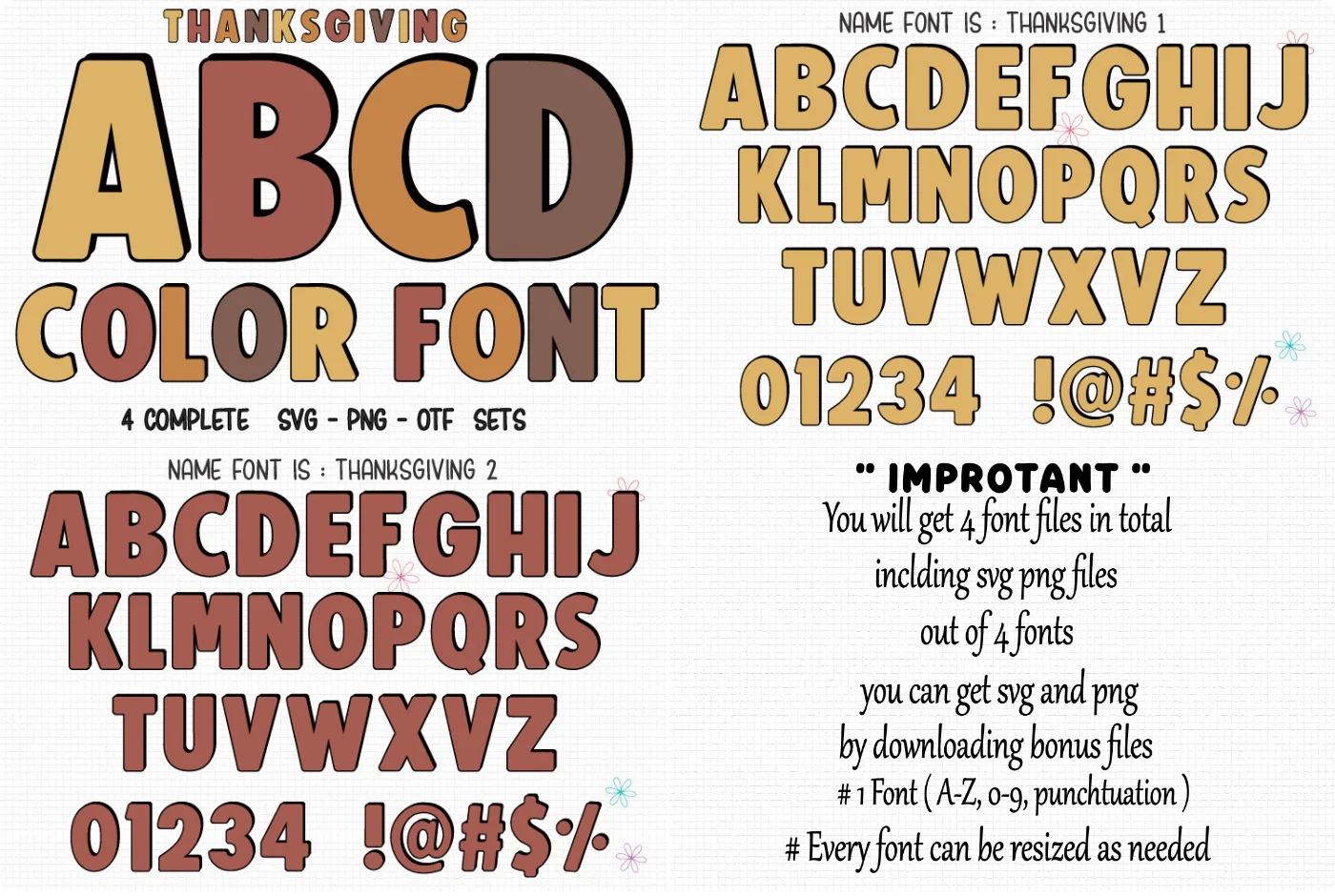
Add playful, chunky charm to kid-focused designs with this cute, colorful display font. Available in both color and solid black versions.
- Style/mood: chunky, cute, colorful, playful, and friendly.
- Best for: children’s activities, school projects, classroom decor, party invites, and craft projects.
- Glyphs: basic character set (standard letters, numbers, punctuation); no special OpenType features specified.
3. Thankful Decorative Display Font
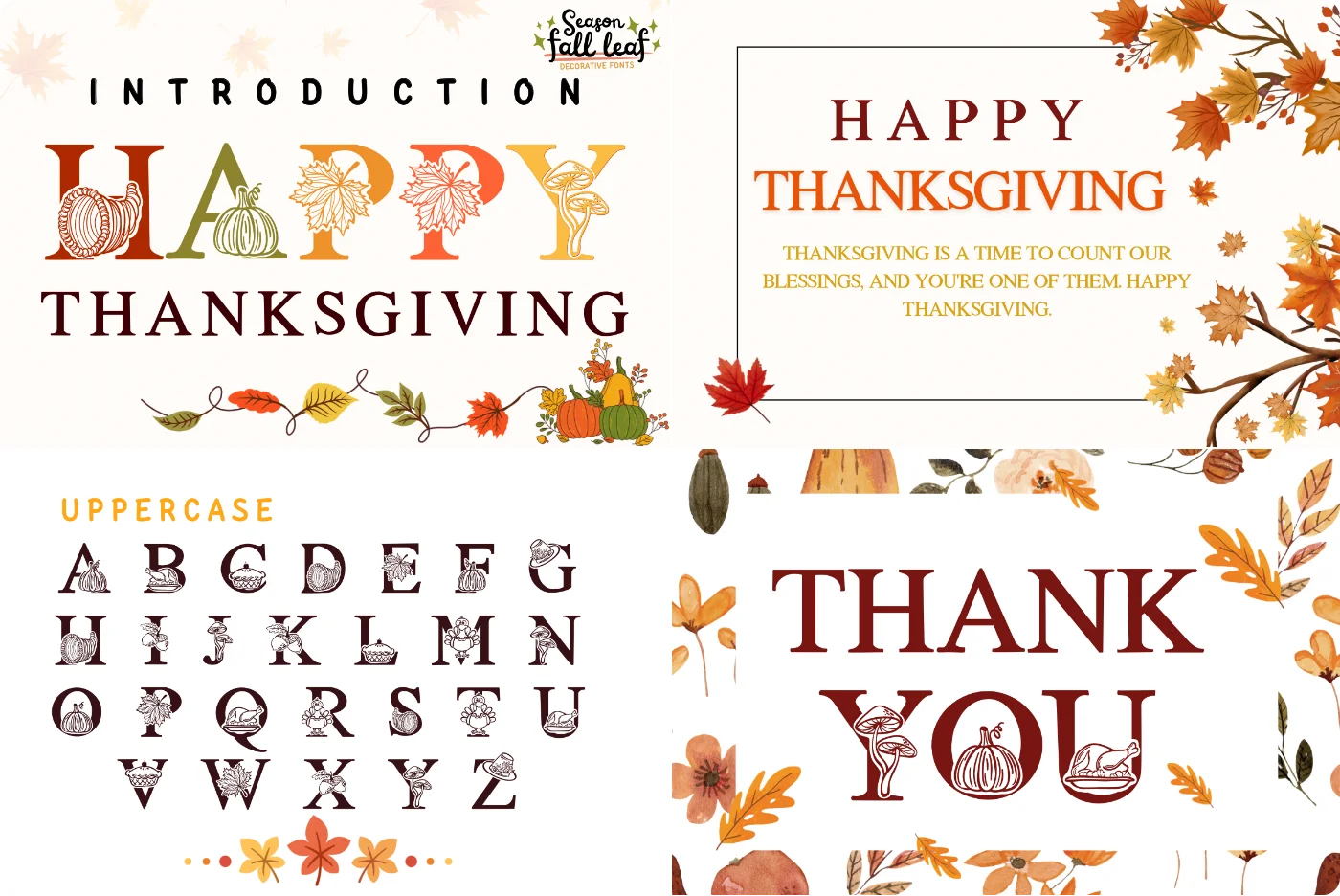
A cheerful, autumn‑themed display font with pumpkin, leaf, and acorn accents—perfect for cozy fall projects and Thanksgiving designs.
- Style/mood: playful, festive, warm decorative display with built‑in fall illustrations.
- Best for: greeting cards and invitations, seasonal banners/posters, mugs and shirts, stickers, social posts, scrapbooking, journals/planners.
- Glyphs/OpenType: character set and features not specified; expect basic Latin letters, numerals, and punctuation; no special OpenType alternates indicated.
4. Thanksgiving Script Font
Thanksgiving is an elegant, warm handwritten script with fluid strokes—perfect for adding a refined, personal touch to your designs.
- Style/mood: flowing, sophisticated, personable handwritten script with a natural rhythm.
- Ideal for: wedding invitations, logos/branding, packaging, greeting cards, quotes, and social media graphics.
- Glyph set: standard Latin A–Z, a–z, numerals, punctuation, and common symbols.
- OpenType features: standard ligatures plus stylistic alternates/swashes; use OpenType-aware apps (Glyphs panel/Character Map) to access alternates, especially in cutting software.
5. Flower Decorative Display Font
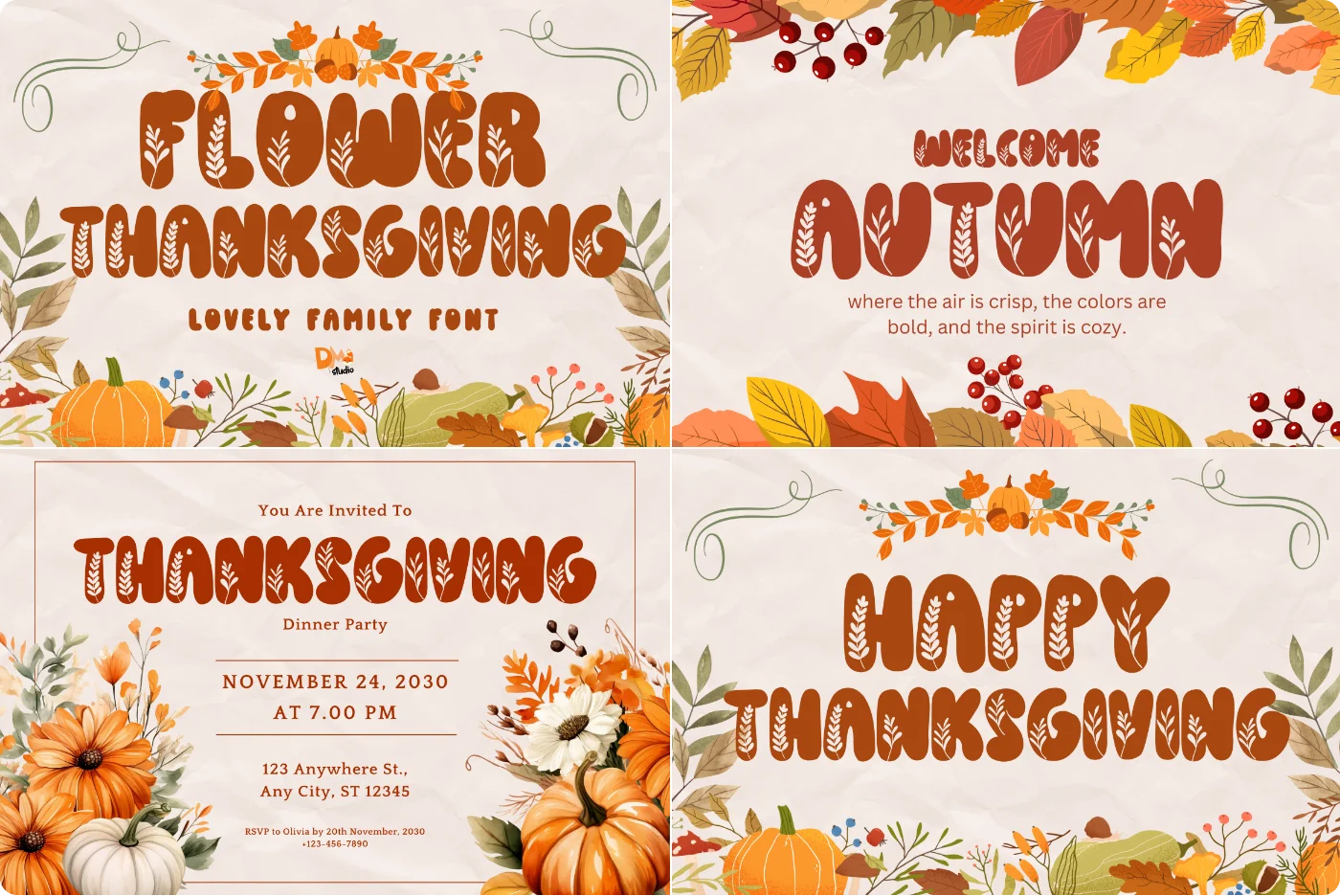
Bring cozy autumn vibes to your designs with Flower Thanksgiving—a bold display font woven with leaves and floral details. Instantly add seasonal warmth to invitations, posts, and cards.
- Style/mood: Ornamental display with floral/foliage motifs; rustic, earthy, and festive—ideal for fall/Thanksgiving themes.
- Best for: Thanksgiving invitations, seasonal social graphics, fall greeting cards, headers, signage, packaging.
- Glyph set: Basic Latin alphabet (A–Z, a–z), numerals, and common punctuation; decorative shapes are integrated into the letterforms.
- OpenType: Standard kerning/metrics; no special alternates or advanced features noted; optimized for headline/display sizes.
6. Thanksgiving Decorative Display Font
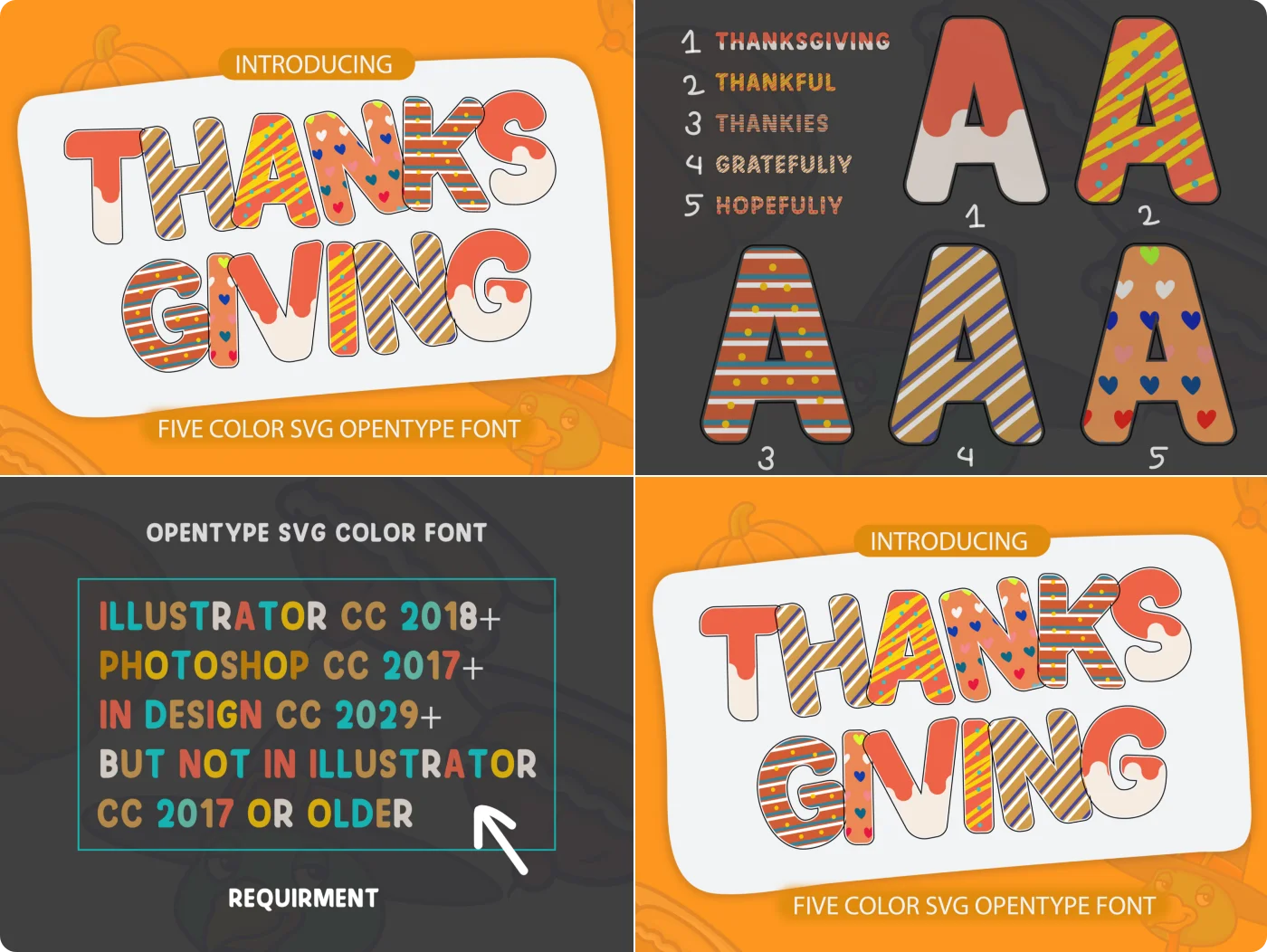
A bright, festive color font that captures autumn warmth and Thanksgiving cheer. Perfect for seasonal designs that need lively, celebratory type.
- Style/mood: multicolor, warm, playful, and festive; includes a solid black variant for versatile use.
- Ideal for: holiday invitations, greeting cards, party decor, social posts, seasonal marketing, and craft projects.
- What’s included: color and solid (black) variants; font files provided in OTF/TTF.
- Compatibility: color version works in Photoshop, Illustrator, Silhouette, and Inkscape; not compatible with Cricut Design Space. Solid black version is compatible with Cricut Design Space and most cutting machines.
- Glyphs: standard A–Z, a–z, numerals, and basic punctuation (no extended language support stated).
- OpenType: basic kerning; no special alternates or advanced features specified.
7. Groovy Decorative Font
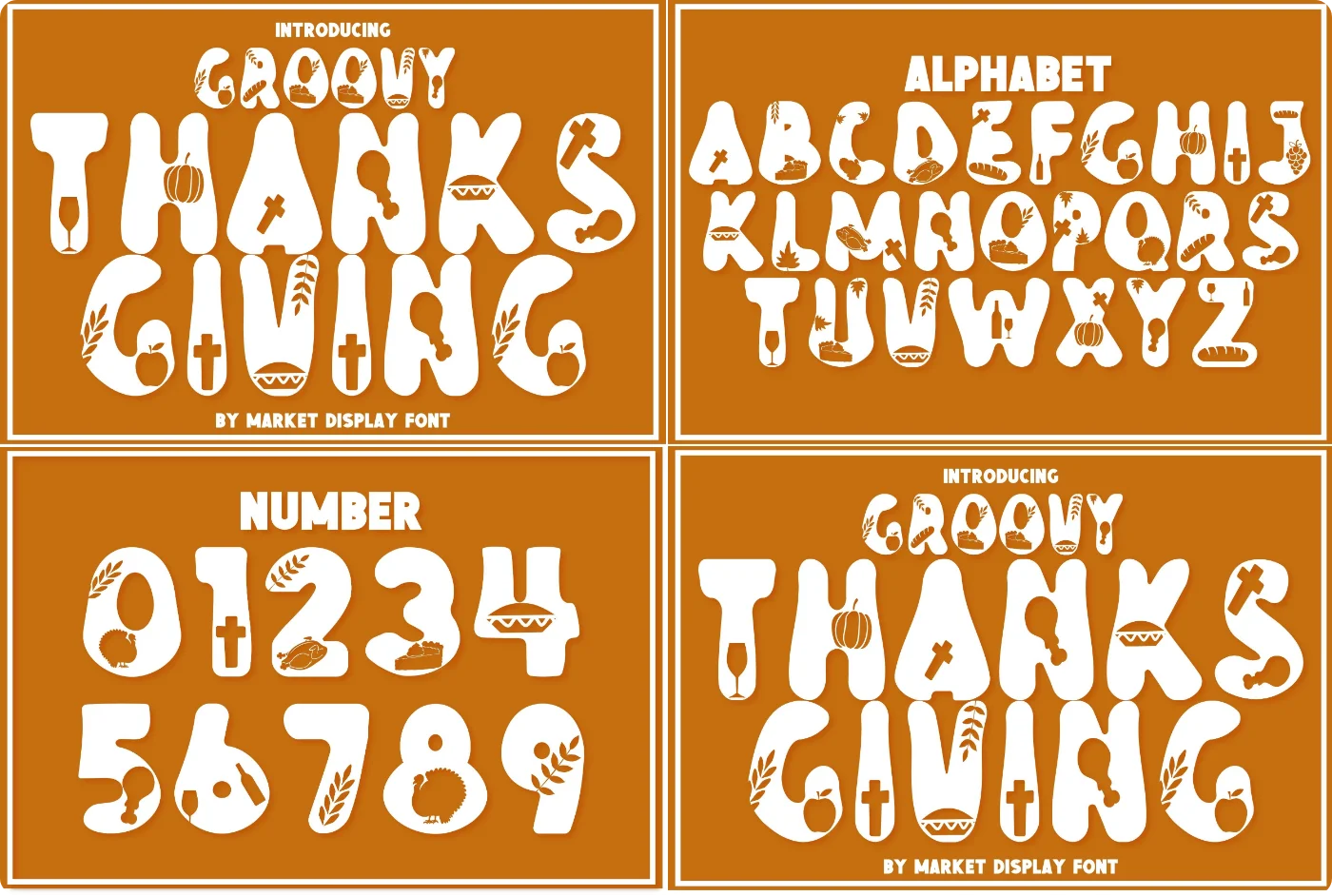
Bold, chunky, and groovy—Groovy Thanksgiving delivers a festive retro vibe that makes fall and Thanksgiving designs pop.
- Style/mood: bold, chunky decorative lettering with a playful 70s-groove feel for festive autumn themes.
- Ideal uses: Thanksgiving cards/invitations, party signage, T‑shirts/mugs, labels, banners, social posts, and craft projects.
- What’s included: standard desktop font files (OTF and TTF); single regular style.
- Compatibility: works on Mac/Windows in Adobe, Affinity, and Office apps; cut-ready in Cricut Design Space and Silhouette Studio (Business Edition recommended for installing OTF/TTF). Color/SVG font features are not included.
- Glyph set: basic Latin alphabet (A–Z, a–z), numerals, and common punctuation.
- OpenType features: standard kerning; no special alternates/ligatures specified.
- Craft-friendly: thick strokes and solid fills for clear printing and easy vinyl/HTV cutting.
8. Thanksgiving Dingbats Font
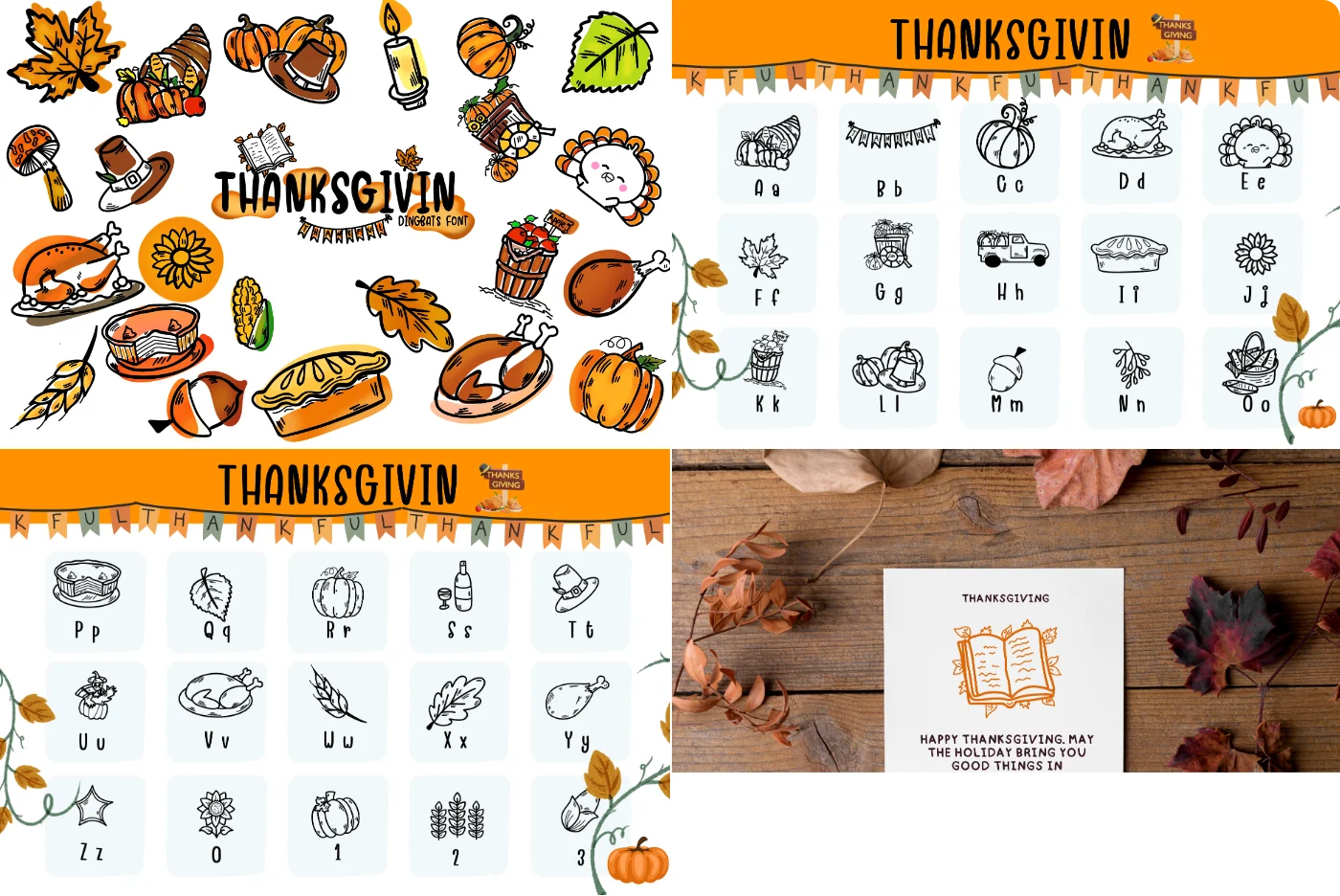
Thanksgiving is a hand‑sketched dingbats font that adds bold, artistic charm to invites, crafts, decor, and logos.
- Style/mood: hand-drawn sketch look; creative, bold, and artisanal.
- Ideal uses: wedding invitations, greeting cards, DIY crafts, signage/home decor, labels/packaging, simple logo marks.
- What’s included: 1 dingbats font in OTF and TTF (regular style).
- Compatibility: Mac/Windows; works in Adobe, Affinity, Office; compatible with Cricut Design Space and Silhouette Studio (latest versions). Not a color/bitmap font—renders as solid vector shapes.
- Glyph set: decorative dingbat icons (not alphabetic characters); icons mapped to standard keyboard positions.
- OpenType: no alternates/ligatures; basic kerning/metrics only.
- Notes: Install like any standard font; ideal for cutting machines due to clean, single‑color vector shapes.
9. Harvest Doodle Hand Drawn Display Font
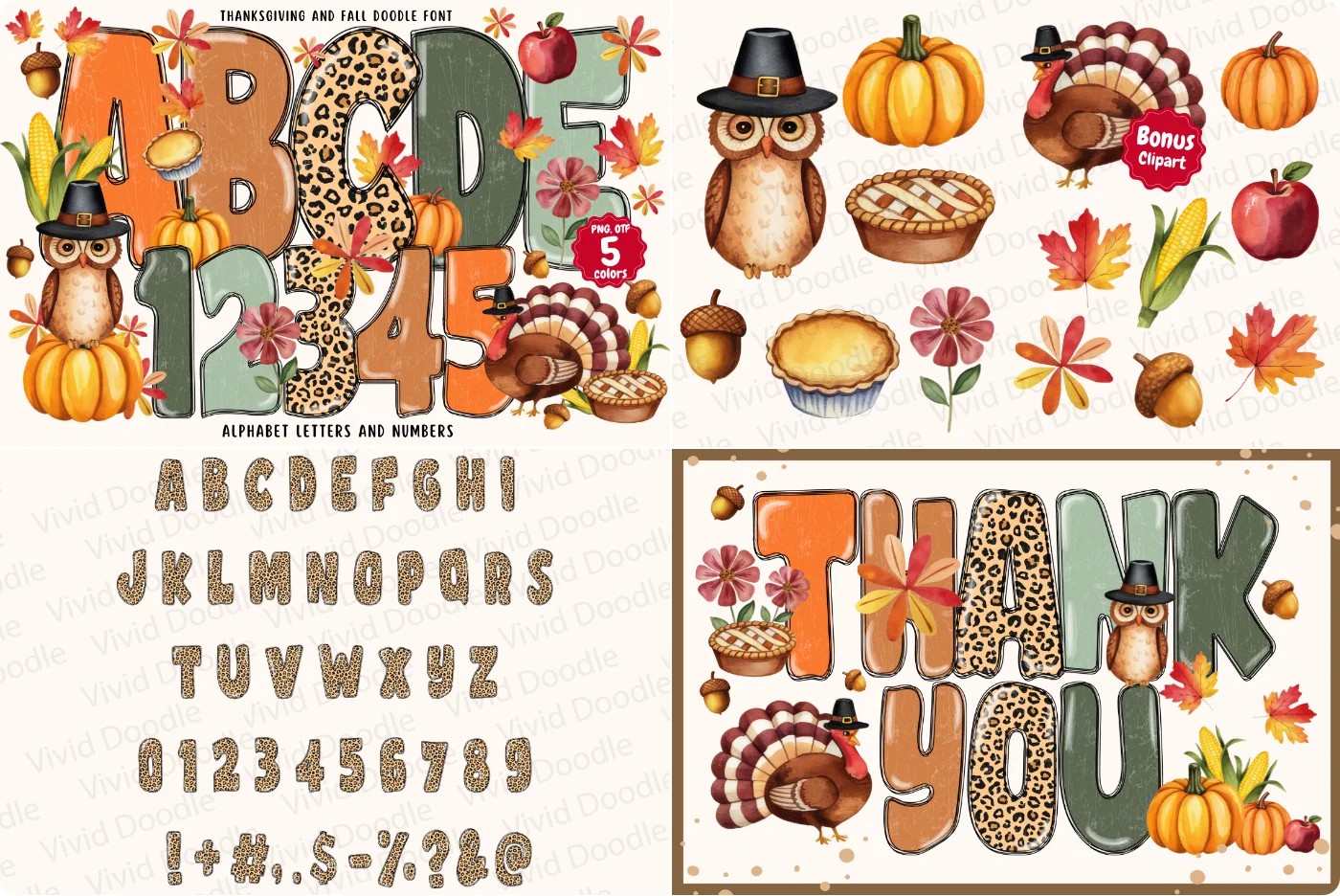
A cozy, hand-drawn color font filled with autumn doodles—leaves, pumpkins, and harvest vibes—to instantly warm up your seasonal designs. Perfect for Thanksgiving projects and festive fall creatives.
- Style/mood: playful, charming, hand-drawn doodle aesthetic with a cozy autumn feel.
- Ideal uses: Thanksgiving invitations, posters, school projects, holiday decor, seasonal crafts/graphics.
- What’s included: OpenType-SVG color font file(s) — OTF and/or TTF; no additional weights/variants specified.
- Compatibility: Works in Adobe Photoshop, Adobe Illustrator, Silhouette Studio, and Inkscape; not compatible with Cricut (OTF/TTF).
- Color-font note: Requires OpenType-SVG support; color rendering depends on your app’s capabilities.
- Glyphs and features: decorative autumn-themed color glyphs; standard OpenType-SVG behavior; no specific alternates/ligatures disclosed.
- Setup/help: For usage guidance, see the Ultimate Font Guide.
10. Thanksgiving Modern Calligraphy Font
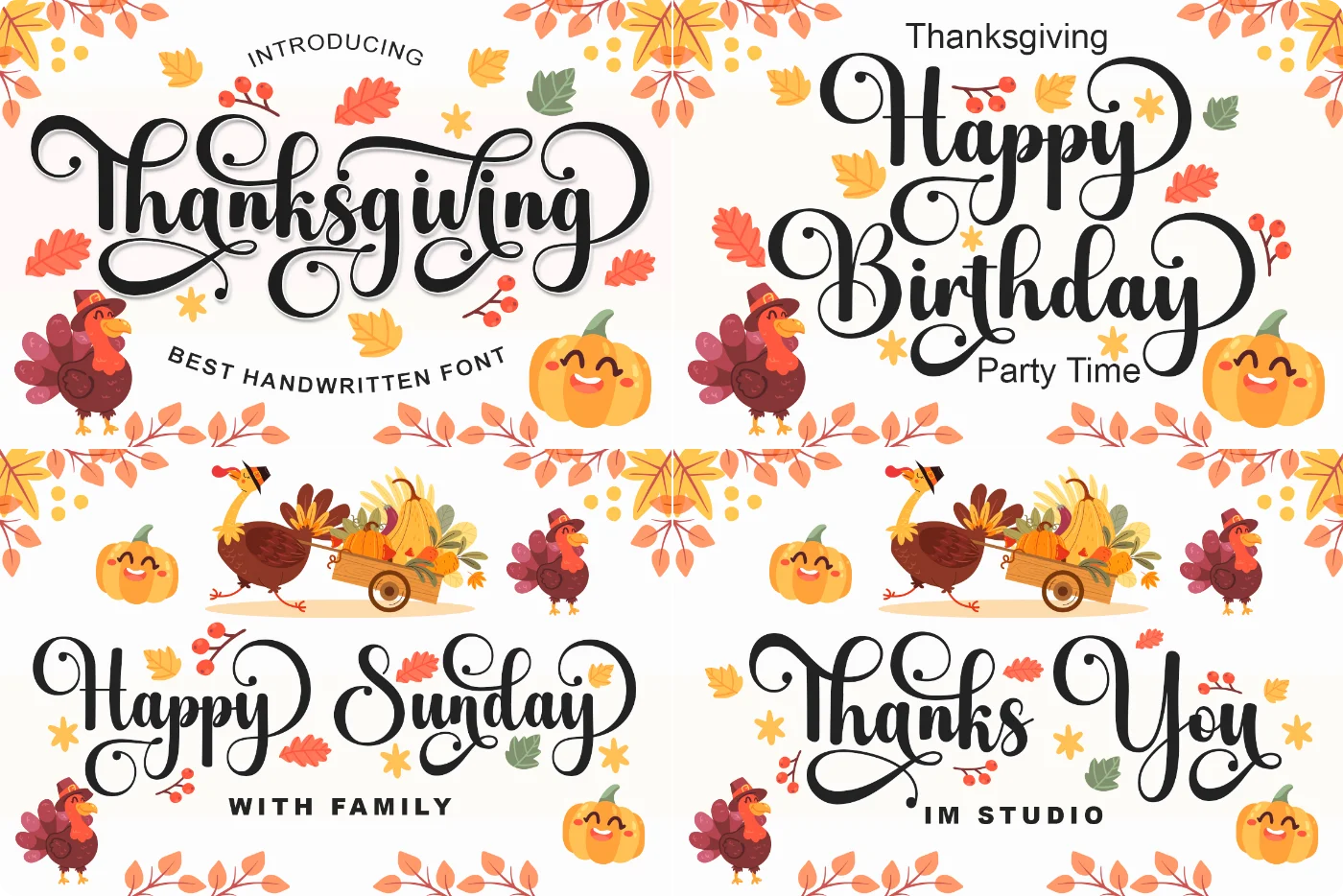
A refined, flowing handwritten script with modern calligraphic flair—ideal for elegant, contemporary designs.
- Style/mood: elegant, smooth, varied baselines; classic calligraphy with a fresh, modern feel.
- Ideal uses: wedding invitations, branding/logos, packaging, social posts, stationery, quotes, signatures.
- Files included: OTF and TTF.
- Compatibility: Mac/Windows; works in Adobe apps and MS Office; fully compatible with Cricut Design Space and Silhouette Studio as a standard (non-color) font.
- Glyph set: A–Z, a–z, 0–9, punctuation.
- OpenType features: stylistic alternates and ligatures; access via OpenType-aware apps or your system’s character map/glyphs panel.
11. Thanksgiving Display Font
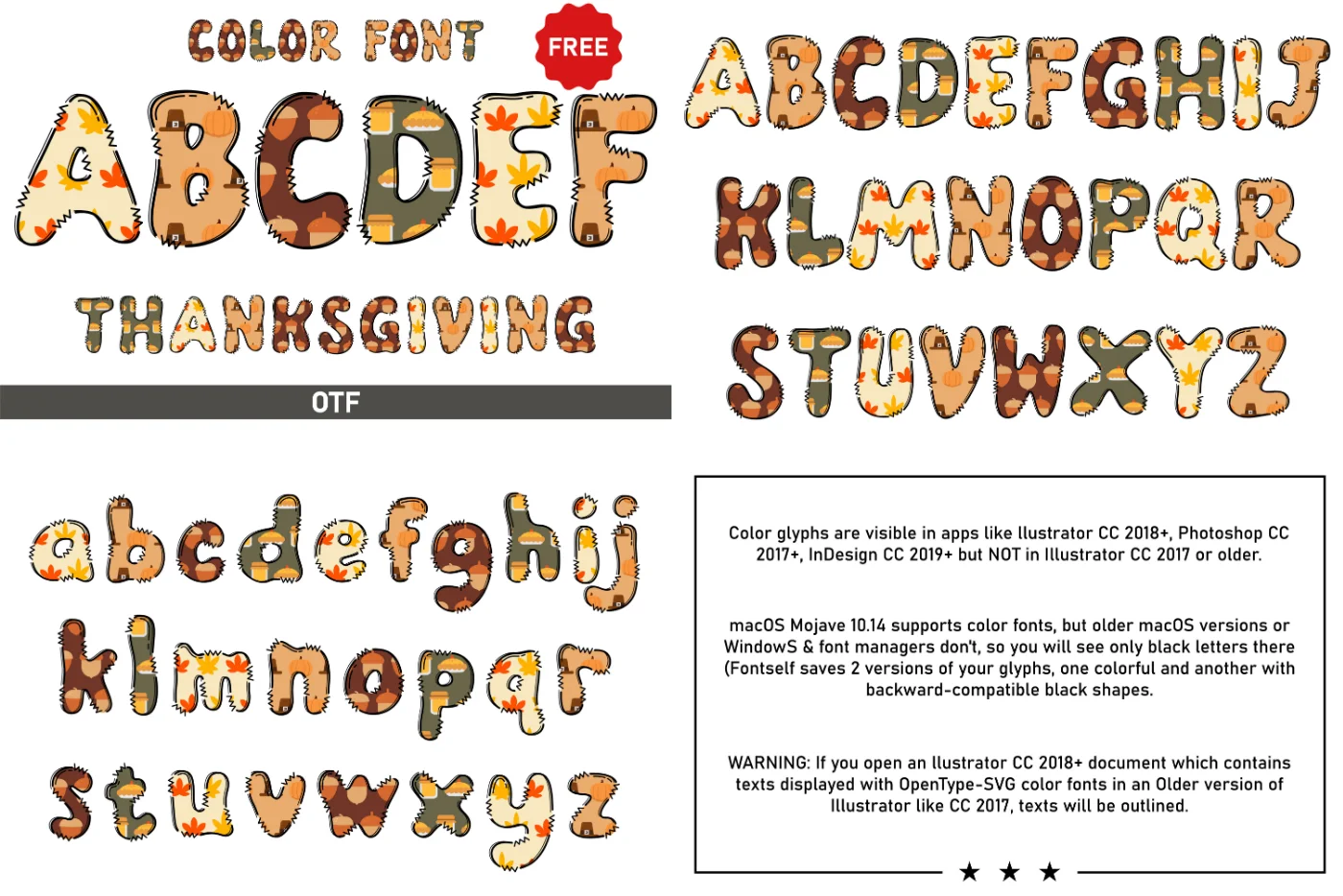
Bring cheerful, hand-drawn charm to your projects with Thanksgiving—a playful, easy-to-read display font perfect for kid-friendly and artsy designs.
- Style/mood: whimsical, artistic, and readable; ideal for friendly, upbeat layouts.
- Best for: children’s books, posters, party invitations, greeting cards, and craft projects (vinyl/HTV).
- What’s included: Black (solid) version and Color version; supplied in OTF/TTF.
- Compatibility: Black version works with Cricut Design Space and most cutting machines.
- Color-font support: Color version works in Adobe Photoshop/Illustrator, Silhouette, and Inkscape; color OTF/TTF are not compatible with Cricut.
- Glyphs: standard Latin A–Z, a–z, numerals, and basic punctuation.
- OpenType: standard features only; no special alternates/ligatures specified.
12. Boho Doodle Hand Drawn Display Font
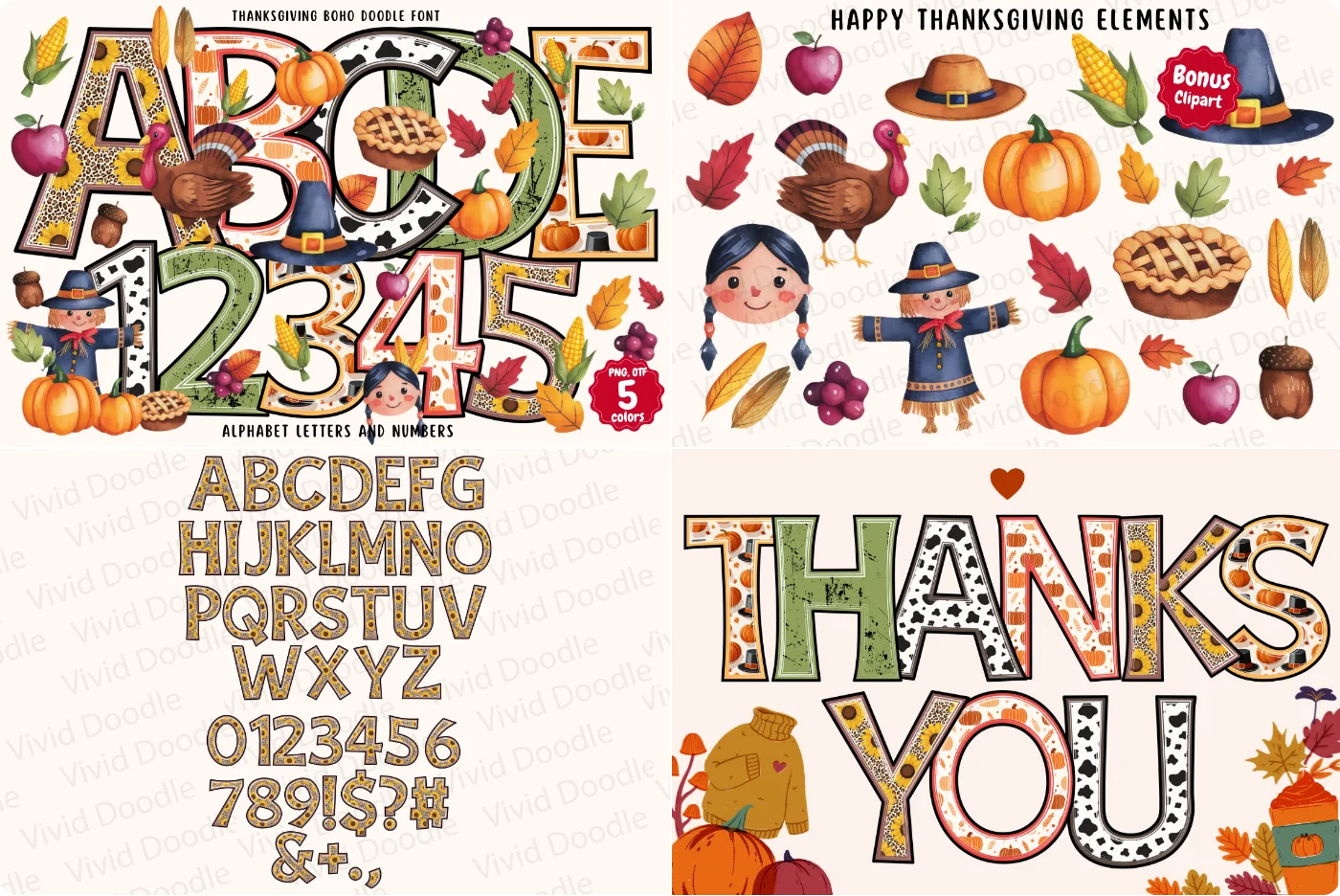
Add cozy fall vibes to any design with this hand-drawn boho doodle color font—playful, rustic, and perfect for Thanksgiving.
- Style/mood: Hand-drawn boho doodles in warm, earthy autumn tones; cozy, playful, rustic.
- Best for: Thanksgiving cards, fall invitations, posters, school projects, crafts, and seasonal decor.
- Included: OpenType-SVG color font file(s) in OTF (and/or TTF) format.
- Compatibility: Works in Adobe Photoshop, Illustrator, Silhouette Studio, and Inkscape; not compatible with Cricut.
- Color-font note: Requires software that supports OpenType-SVG; colors may not display in unsupported apps.
- Glyphs/OpenType: Color glyphs for A–Z, a–z, numerals, and basic punctuation; no extra alternates/ligatures specified.
13. Preppy Decorative Script Font
Cozy, preppy autumn lettering for fall and Thanksgiving designs—perfect for crafts, prints, and seasonal branding.
- Style/mood: warm, festive, preppy autumn vibe with smooth, friendly curves.
- Ideal for: Thanksgiving invites, fall quotes, apparel, mugs, signage, stickers, scrapbooking, and social posts.
- What’s included: 5 styles total, including black (solid) and color versions; OTF/TTF files provided.
- Compatibility: Black version works with Cricut Design Space and most cutting machines. Color version works in Photoshop, Illustrator, Silhouette, and Inkscape. Color OTF/TTF is not compatible with Cricut.
- Glyphs: standard character set; extended language coverage not specified.
- OpenType: no special features listed (ligatures/alternates not specified).
14. Thanksgiving Brush Script Font
Thanksgiving is a modern brush script that blends hand-painted energy with refined elegance—perfect for designs that need expressive, premium flair.
- Style/mood: fluid brush strokes, dynamic curves, and expressive letterforms for an artistic, contemporary, and sophisticated look.
- Best for: logos, invitations, packaging, branding, and social media graphics.
- What’s included: desktop font files (OTF and TTF); single script style.
- Compatibility: works on Mac/Windows in Adobe, Affinity, and Office apps; fully usable in Cricut Design Space and Silhouette Studio as a standard (non-color) font.
- Color-font note: this is not a color/SVG bitmap font; apply colors and effects in your design software.
- Glyphs and features: basic Latin A–Z, a–z, numerals, punctuation; OpenType-ready with kerning plus standard ligatures/contextual connections for smoother strokes.
15. Thanksgiving Casual Script Font
A cute, whimsical handwritten script that brings cozy, celebratory charm to every season. Perfect for holiday designs from Thanksgiving to New Year.
- Style/mood: playful, warm, festive script with a hand-lettered feel for seasonal themes (Thanksgiving, Christmas, winter, spring, autumn, New Year).
- Ideal uses: greeting cards, invitations, gift tags, quotes, social posts, branding, packaging, mugs and apparel.
- Files included: OTF and TTF (Regular).
- Compatibility: Mac/Windows; works in Adobe, Affinity, Canva, Microsoft Office; cut-friendly in Cricut Design Space and Silhouette Studio as a standard installed font. Not a color/bitmap SVG font (color fonts are not supported by these apps).
- Glyph set: standard Latin A–Z, a–z, 0–9, punctuation and basic symbols; smooth connecting strokes for a natural handwritten flow.
- OpenType: kerning and standard ligatures for cleaner letter connections (accessible in OpenType-capable apps via Character/Glyph panels).
16. Thanks Joy Decorative Display Font
Thanksgiving Joy is a cheerful, rounded display font with nine Thanksgiving-themed variations—perfect for playful, feel‑good seasonal designs.
- Style/mood: Whimsical, friendly, and warm; captures the joy and gratitude of Thanksgiving.
- Ideal uses: Invitations (Thanksgiving and fall birthdays), party decor, logos, stickers, apparel, packaging, children’s books, magazines, and social posts.
- What’s included: 9 decorative variants inspired by turkey, pumpkins, pie, leaves, and hats.
- Formats: OTF and TTF desktop font files; standard vector outlines (not a color/SVG font).
- Compatibility: Works on Mac/Windows; cut-friendly for Cricut Design Space and Silhouette Studio. Note: OpenType features depend on app support.
- Glyph set/features: Basic Latin A–Z, a–z, numerals, and punctuation; standard kerning. No special alternates/ligatures specified.
17. Thanksgiving Handwritten Script Font
Thanksgiving is a chic handwritten script with a modern calligraphy feel—elegant, balanced, and easy to read for polished, personal designs.
- Style/mood: modern calligraphy script; refined, warm, and stylish with smooth, flowing letterforms.
- Best for: logos and branding, wedding invitations, greeting cards, packaging, social posts, quotes, and signage.
- What’s included: OTF and TTF desktop formats.
- Compatibility: works on Mac/Windows in all major design apps; fully compatible with Cricut Design Space and Silhouette Studio (PUA encoded for easy glyph access).
- Glyphs and features: A–Z, a–z, numbers, punctuation, plus built‑in ligatures; PUA encoding lets you copy/paste special characters without OpenType-savvy software.
- Color-font note: standard monochrome OpenType font (not an SVG/color font); apply colors in your design software.
18. Pumpkin Thanksgiving Decorative Display Font
Carved-pumpkin lettering with cozy fall vibes—perfect for Thanksgiving crafts and autumn branding.
- Style/mood: playful, hand-carved pumpkin look; warm, seasonal decorative display.
- Ideal uses: Thanksgiving invitations/menus, harvest posters, party/classroom decor, t-shirts/mugs, stickers, porch signs, and social posts.
- What’s included: 1 style (Regular); font files in OTF and TTF.
- Compatibility: Works in Adobe apps, Microsoft Office, Canva; fully compatible with Cricut Design Space and Silhouette Studio after installing as a system font.
- Color/font tech: single-color vector outlines (not a color/bitmap font), so it cuts/prints cleanly in Cricut/Silhouette.
- Glyph set: standard Latin A–Z and a–z, numerals 0–9, and basic punctuation/symbols.
- OpenType: kerning for polished spacing; supported in OpenType-savvy apps.
19. Thanks Display Font
Thanksgiving Day is a bold, chunky display font with a festive vibe—perfect for eye‑catching Thanksgiving headlines and crafts.
- Style/mood: heavy, playful, and seasonal; designed for display use.
- Best for: Thanksgiving cards and invitations, menus, banners/posters, social posts, T‑shirts/mugs, farmhouse signs, and SVG craft projects.
- What’s included: OTF and TTF font files (1 regular style).
- Compatibility: Mac/Windows; works in Adobe, Affinity, and MS Office apps; fully compatible with Cricut Design Space and Silhouette Studio. Not a color/bitmap font.
- Crafting note: Installs as a standard system font and cuts cleanly for vinyl/HTV and paper projects.
- Glyph set: Basic Latin A–Z, a–z, numerals 0–9, and standard punctuation/symbols.
- OpenType: Standard kerning and metrics; features available in apps that support OpenType.
20. Pumpkin Dingbats Font
Hand‑sketched Thanksgiving charm in a font: a pumpkin-themed dingbat set that instantly adds cozy, crafty fall vibes to your designs.
- Style/mood: hand-drawn, sketch-style Thanksgiving/pumpkin icons; warm, festive, and DIY-friendly.
- Ideal uses: wedding invitations, greeting cards, party decor, labels/tags, logos, scrapbooking, and general crafts.
- Formats included: standard desktop font files (OTF/TTF). Installs on Mac/Windows; scalable vector glyphs.
- Compatibility: works in Adobe/Office/Canva (upload), and as a system font in Cricut Design Space and Silhouette Studio via the Text tool.
- Color/font behavior: typical dingbats inherit your chosen font color (not a multi‑color SVG color font); add fills/strokes in your design app.
- Glyph access: icon glyphs mapped to keyboard characters; browse/copy via Character Map (Windows) or Font Book (macOS).
- OpenType: no advanced layout features required; Cricut/Silhouette do not use OpenType features.
21. Thanksgiving Handwritten Script Font
A refined, delicate handwritten script, Thanksgiving adds elegant flair to branding, events, and social visuals.
- Style/mood: graceful, airy, modern-calligraphy handwriting with a soft, elegant feel.
- Ideal for: logos and branding, social media posts, ads, business cards, wedding invitations, and product packaging.
- What’s included: standard desktop font files (OTF and TTF).
- Compatibility: works on macOS/Windows; fully usable in Cricut Design Space and Silhouette Studio.
- Color/font type: standard vector outline font (not a color/bitmap font); set any color in your design software.
- Glyphs & features: full A–Z uppercase/lowercase, numerals, punctuation; PUA-encoded for easy access to stylistic alternates in any app.
22. Thanksgiving Display Font
A friendly, chunky display font that makes classroom and holiday designs pop. Perfect for kids’ crafts, school projects, and bold, cheerful headlines.
- Style/mood: chunky, rounded, hand‑lettered; playful and kid‑friendly.
- Ideal uses: children’s activity sheets, school posters, bulletin boards, invitations, stickers, labels, and fall/Thanksgiving crafts.
- What’s included: Thanksgiving Day Regular (OTF and TTF).
- Compatibility: works on Mac/Windows in Adobe, Affinity, Microsoft Office, Canva (installed fonts), plus Cricut Design Space and Silhouette Studio v4+.
- Color-font note: standard solid (non‑color) font—apply colors in your design software; cutting machines have limited support for SVG/bitmap color fonts.
- Glyph set: A–Z, a–z, 0–9, and basic punctuation/symbols (basic Latin).
- OpenType: standard kerning; no advanced alternates or special features.
23. Thanksgiving Decorative Display Font
A bold, festive display font with playful, layered letterforms that capture cozy autumn and Thanksgiving vibes—fun yet readable for seasonal headlines and crafts.
- Style/mood: bold decorative display; cozy, joyful fall aesthetic with pumpkin/leaf-inspired segments; smooth curves for clear readability.
- Ideal uses: Thanksgiving invitations, greeting cards, banners/signage, party printables, social posts, and seasonal packaging.
- What’s included: standard desktop font files (OTF and TTF); single Regular style.
- Compatibility: Mac/Windows; works in Adobe/Affinity/Microsoft apps; usable in Cricut Design Space and Silhouette Studio after installing as a system font.
- Color/font note: not a color/SVG font; renders in a single color—apply multi-color effects by layering in your design software.
- Glyph set: basic Latin A–Z, a–z, 0–9, and standard punctuation/symbols.
- OpenType features: standard kerning; no special alternates or ligatures specified.
24. Thankful Handwritten Font
A cheerful handwritten font with a warm, friendly vibe—perfect for heartfelt notes, cards, and festive projects.
- Style/mood: casual, hand-drawn, approachable; great for seasonal or everyday designs
- Use cases: notes and journals, greeting cards, banners, mugs, shirts, stationery, and social media graphics
- What’s included: OTF and TTF files; single style/weight
- Compatibility: Mac/Windows; works in Adobe apps, Microsoft Office, Canva (upload), Procreate (via installed fonts); cut-ready in Cricut Design Space and Silhouette Studio; not a color/SVG font
- Glyph set: basic Latin A–Z and a–z, numerals 0–9, and common punctuation
- OpenType: standard kerning/metrics; no alternates/ligatures specified
25. Thanks Display Font
Festive Thanksgiving turkey clipart—crisp, ready-to-print artwork for holiday crafts, gifts, and merch.
- Style/mood: Playful, cozy fall/Thanksgiving aesthetic; transparent background for easy placement.
- Typical uses: Sublimation (mugs, tumblers), apparel (T-shirts/hoodies), vinyl stickers, invitations/cards, marketing visuals, Canva/Procreate projects, scrapbooking, iron-on transfers.
- What’s included: 1 PNG (4500 × 5400 px, 300 dpi, transparent) and 1 JPG (300 dpi). No editable SVG or layered source files.
- Compatibility: Works in Cricut Design Space and Silhouette Studio as print-then-cut/sublimation artwork; also compatible with Canva, Procreate, Photoshop, etc.
- Fonts: No OTF/TTF files or font variants included—this is clipart, not a typeface.
- Glyphs/OpenType: Not applicable—no glyph set or OpenType features.
26. Thanksgiving Handwritten Font
A cute, cozy handwritten trio built for festive, feel‑good designs. Mix the three coordinating styles for effortless, playful typographic pairs.
- Style/mood: playful, warm, hand-drawn; a coordinating trio (3 matching fonts) for mix-and-match looks
- Ideal for: banners, mugs, cards, shirts, stationery, invitations, social posts, and seasonal branding
- What’s included: three matching fonts; specific file formats not stated in the listing (commonly OTF/TTF)—check your download contents
- Compatibility: standard system fonts (OTF/TTF) work in Adobe/Affinity, Microsoft Office, Procreate (via system install), Cricut Design Space, and Silhouette Studio v4+; no color/SVG info provided
- Glyphs: basic Latin A–Z, a–z, 0–9, and punctuation; multilingual support not specified
- OpenType: no alternates/ligatures or special features mentioned in the listing (assume standard features only)
27. Thanksgiving Handwritten Script Font
A warm, laid‑back handwritten script that adds easy elegance and personality to your designs.
- Style/mood: fluid, organic strokes; casual, friendly, and subtly elegant.
- Ideal uses: logos/branding, invitations and cards, packaging, quotes, and social media graphics.
- What’s included: desktop font files (OTF and TTF), regular style.
- Compatibility: works in Adobe, Affinity, and Microsoft apps; install as a system font for Cricut Design Space and Silhouette Studio. Note: OpenType‑SVG color fonts have limited support in Cricut/Silhouette.
- Glyph set: A–Z, a–z, 0–9, and basic punctuation.
- OpenType: standard kerning; ligatures/stylistic alternates accessible in OpenType‑savvy apps.
28. Thanks Handwritten Script Font
A cute, cozy handwritten script that brings warm holiday cheer to your crafts year‑round. Perfect for Thanksgiving, Christmas/winter, spring, and everyday DIY projects.
- Style/mood: whimsical, inviting script with a handmade, festive feel.
- Ideal uses: holiday cards and invitations, farmhouse signs, mugs and apparel, DIY crafts, scrapbooking, and embroidery patterns.
- What’s included: desktop font in OTF and TTF (single regular style).
- Compatibility: works on Mac/Windows; fully compatible with Cricut Design Space and Silhouette Studio (v3+). Standard solid font (not an SVG/color font).
- Glyph set: A–Z, a–z, numerals, and basic punctuation with smooth script connections.
- OpenType: standard kerning; no special alternates or multilingual sets specified.
29. Thanksgiving Futuristic Sans Font
Make a bold statement. Thanksgiving is a modern, futuristic sans serif built to make logos and headlines stand out.
- Style/mood: bold, clean sans serif with a modern, futuristic, confident tone.
- Ideal uses: logos, headlines, posters, tech/gaming branding, packaging, social media graphics.
- Included files: OTF and TTF; single bold weight; uppercase/lowercase, numerals, basic punctuation.
- Compatibility: Works in Adobe, Affinity, and Microsoft Office; compatible with Cricut Design Space and Silhouette Studio (use TTF if OTF isn’t supported); not a color/bitmap font.
- Glyph set: standard Latin A–Z, a–z, 0–9, and common symbols/punctuation.
- OpenType: standard kerning/metrics; functions in apps that support OpenType features.
30. Thanksgiving Display Script Font
A festive, nostalgic display font that brings holiday cheer to cards, tags, and seasonal designs. Decorative details add instant charm to any holiday project.
- Style/mood: cheerful, festive, nostalgic, decorative display.
- Best for: greeting cards, gift labels/tags, invitations, holiday-themed prints and crafts.
- Features: PUA encoded for easy access to special characters; includes decorative alternates and ligatures; OpenType features work in supporting apps.
- What’s included: standard desktop font files (OTF/TTF).
- Compatibility: works in popular design software; PUA encoding makes alternates accessible in Cricut Design Space and Silhouette Studio.
- Color-font note: no color/bitmap features indicated; cutting machines do not support color fonts.
31. Thanksgiving Modern Calligraphy Font
A modern handwritten script with classic calligraphic grace—perfect for polished, elegant projects.
- Style/mood: refined, flowing handwritten script with a contemporary calligraphy feel.
- Best for: logos and branding, wedding/holiday invitations, packaging, greeting cards, quotes, and social media.
- What’s included: desktop font files in OTF and TTF; 1 weight/style (Regular).
- Compatibility: Mac/Windows; works in Adobe, Affinity, and Microsoft Office; fully usable in Cricut Design Space and Silhouette Studio after installation. Not a color/SVG font—single-color vector outlines for printing and cutting.
- Glyph set: A–Z, a–z, numerals, punctuation, and basic symbols.
- OpenType features: standard ligatures and stylistic alternates for natural connections (accessible in apps with a Glyphs panel; in Cricut/Silhouette via the system character map).
32. Thanksgiving Display Font
Thanksgiving is a bold, chunky display font with a warm, festive vibe—ideal for seasonal projects that need instant impact.
- Style/mood: bold, chunky, friendly, and celebratory; designed for standout seasonal headlines.
- Best for: Thanksgiving invitations, menus, signage, banners, mugs/shirts, printables, and social posts (including vinyl cutting).
- What’s included: two variants—Black (solid) and Color—delivered in OTF/TTF font formats.
- Compatibility: Black version works with Cricut Design Space and most cutting machines; Color version works in Photoshop, Illustrator, Silhouette, and Inkscape; Color OTF/TTF is not compatible with Cricut.
- Color-font note: Requires apps that support color fonts; in unsupported apps the font may appear solid/black.
- Glyph set: standard Latin letters, numerals, and basic punctuation.
- OpenType features: none specified by the publisher.
33. Thanksgiving Display Font
Bring a playful, hand-crafted vibe to your designs with a whimsical, easy-to-read display font bundle—perfect for cheerful, eye-catching projects.
- Style/mood: fun, whimsical, artistic; legible display look with black (solid) and color variants.
- Ideal for: children’s books, posters, invitations, greeting cards, party decor, and classroom materials.
- What’s included: font files in OTF and TTF; includes both a black (solid) version and a color version.
- Cutting machines: black version is compatible with Cricut Design Space and most cutting machines.
- Color-font compatibility: color version works in Photoshop, Illustrator, Silhouette Studio, and Inkscape; not compatible with Cricut; requires apps that support color fonts.
- Glyphs and features: standard Latin letters (A–Z, a–z), numerals, and punctuation; no advanced OpenType features specified.
34. Thanksgiving Display Font
Make your holiday projects pop with Thanksgiving—a bold, chunky display font that delivers instant festive charm. Perfect for standout headlines and craft cuts.
- Style/mood: Bold, chunky, playful, and festive; designed for high-impact display use.
- Ideal for: Thanksgiving invitations, menus, place cards, banners, shirts, mugs, stickers, signs, and social posts.
- What’s included: Single weight; desktop font files (OTF and TTF).
- Compatibility: Mac/Windows; works with Cricut Design Space and Silhouette Studio; standard vector (not a color/bitmap font), so it cuts and prints cleanly.
- Glyph set: Basic Latin A–Z, a–z, 0–9, punctuation, and common symbols; no extended language set specified.
- OpenType: Standard kerning and metrics; no special alternates/swashes or stylistic sets specified.
35. Thanksgiving Casual Script Font
Thanksgiving is a bold, cozy handwritten script that instantly adds warmth to festive and heartfelt designs. Casual, flowing letters deliver a friendly, inviting look.
- Style/mood: bold handwritten script; warm, friendly, casual, and flowing for cozy holiday vibes
- Ideal uses: holiday cards and invitations, quotes, social posts, gift tags, mugs/apparel, seasonal branding and packaging
- What’s included: 1 style; OTF and TTF font files
- Compatibility: works on Mac/Windows in major design apps; fully compatible with Cricut Design Space and Silhouette Studio; single-color vector font (not a color/bitmap SVG font)
- Glyph set: basic Latin A–Z and a–z, numerals 0–9, and common punctuation/symbols
- OpenType features: standard kerning and spacing; no additional alternates/swashes or color features